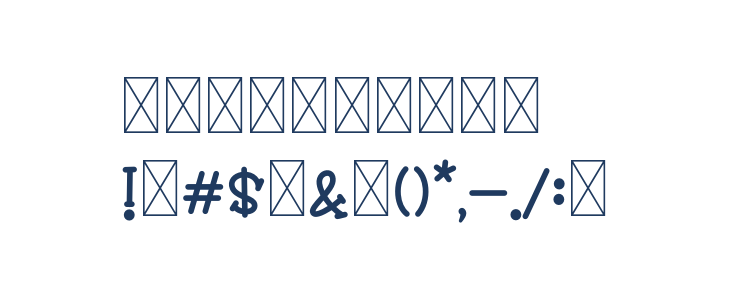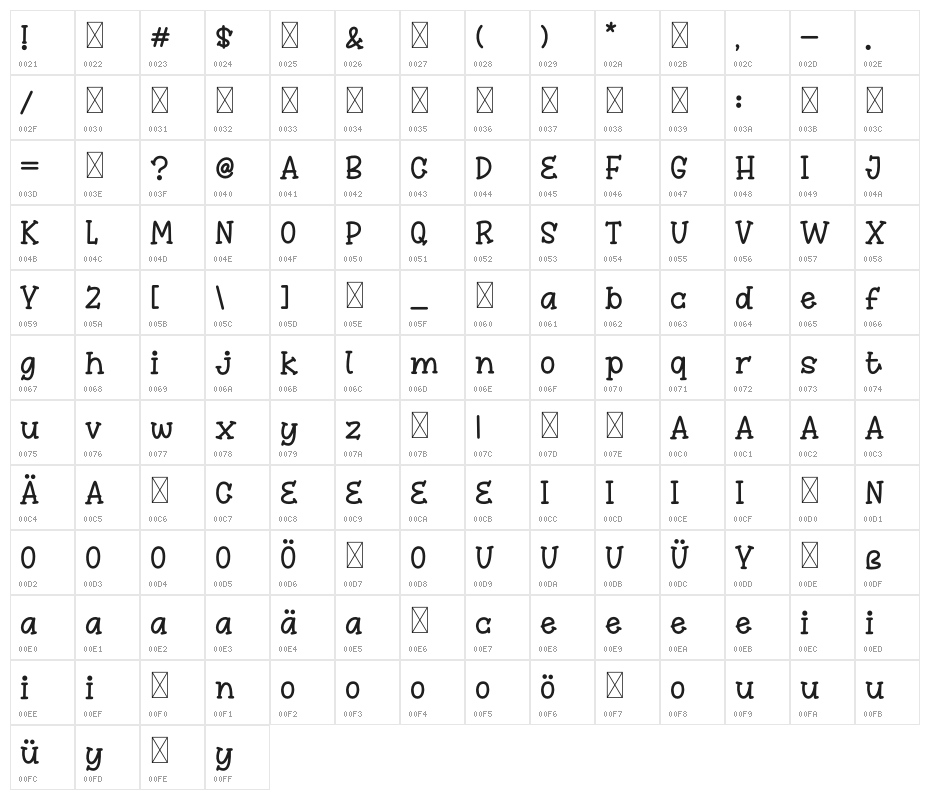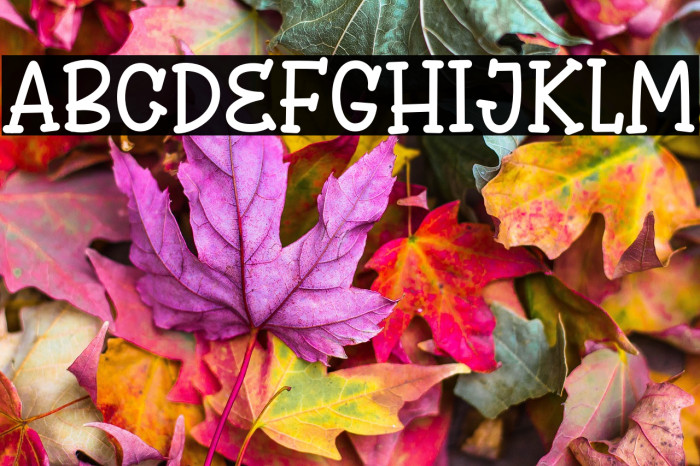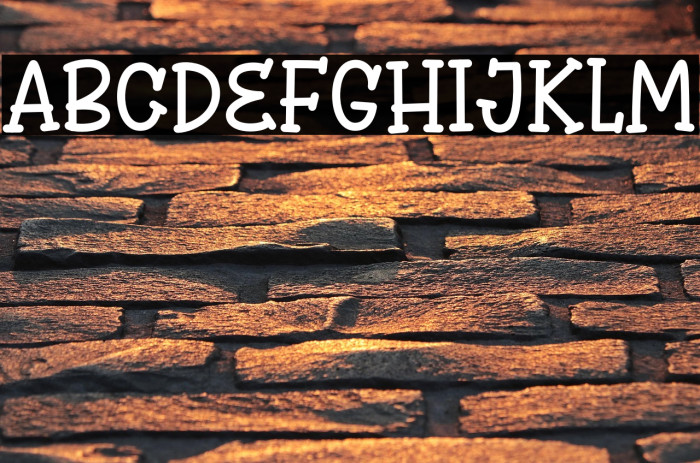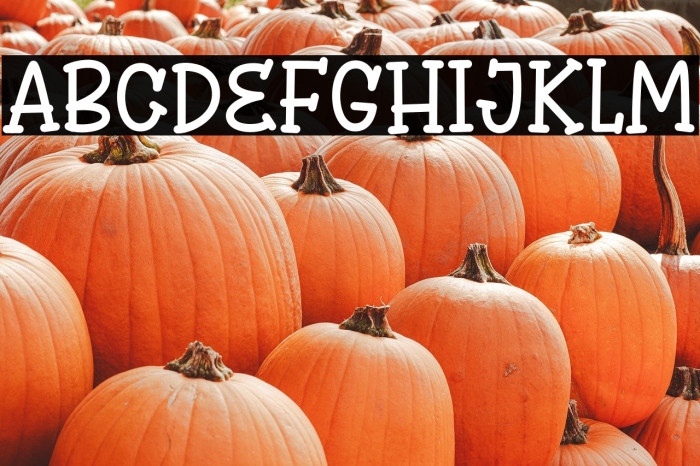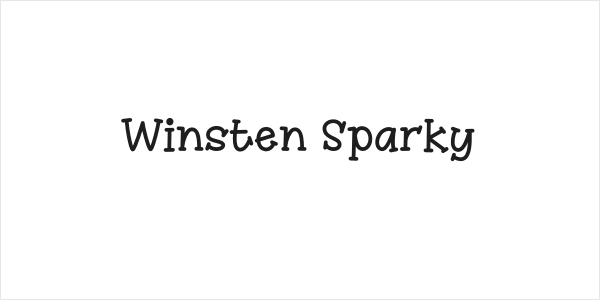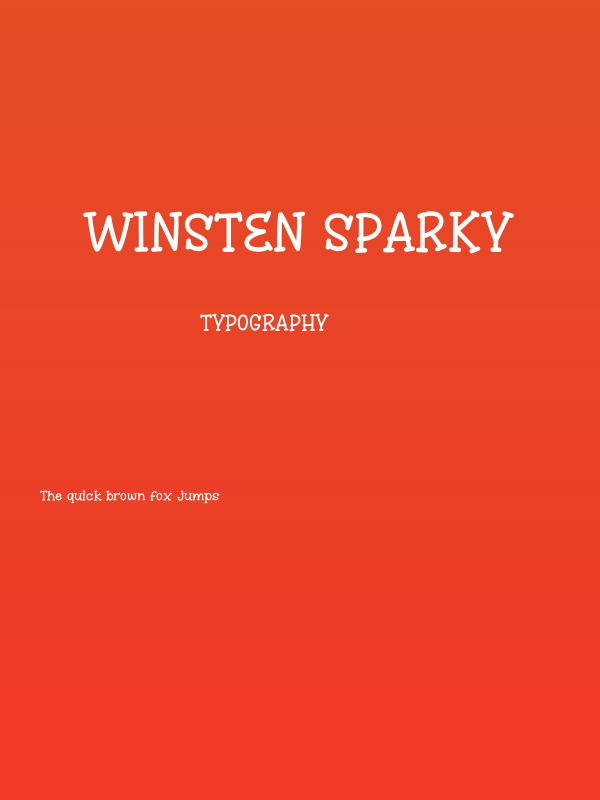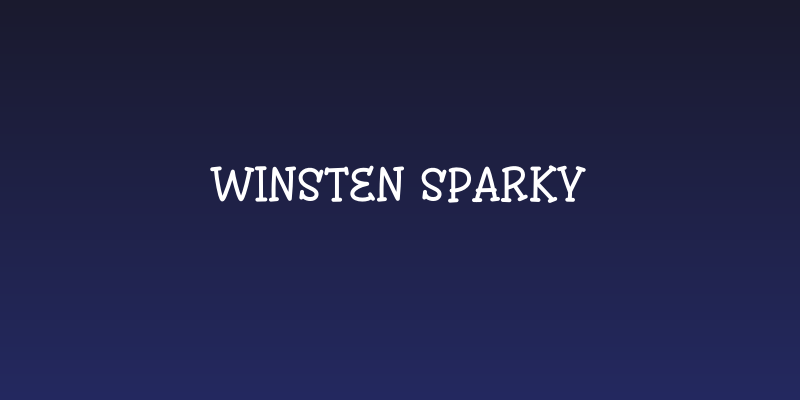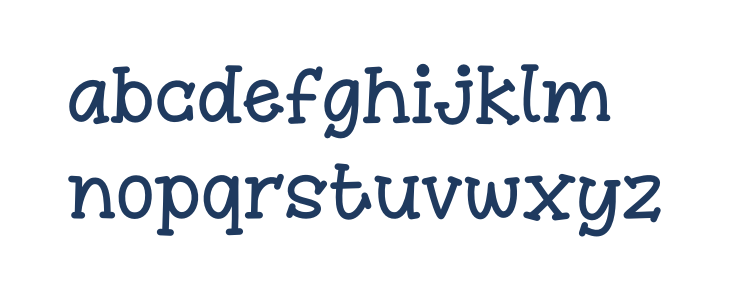
Winsten Sparky Font
Winsten Sparky Description
This font features a playful and informal style with rounded, slightly irregular strokes that give it a handwritten appearance. The uppercase letters are bold and prominent, while the lowercase letters maintain a consistent flow with a casual elegance. The numbers and special characters are designed to match the overall whimsical aesthetic, making them ideal for creative projects. The font's unique charm is enhanced by its moderate contrast in stroke thickness, adding to its legibility and appeal.
Overall StyleCasual, Playful
Use CaseHeadlines, Logos, Invitations
Proposed ProjectsIdeal for children's books, greeting cards, playful branding, and casual invitations.